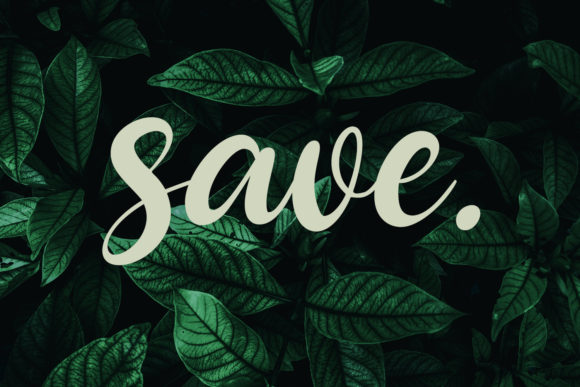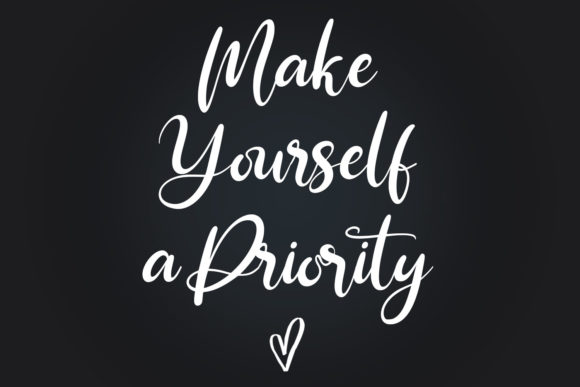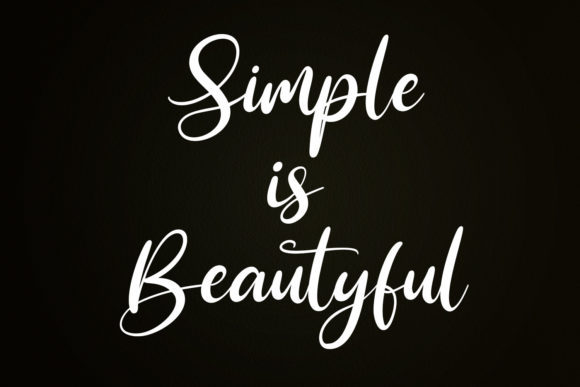
Introduction to Chime Bells Font
Have you ever found yourself staring at a blank canvas, trying to find the perfect font to bring your creative project to life? I know I have. And sometimes, all it takes is one beautiful font to spark inspiration and set your imagination running wild. That’s exactly what happened to me when I stumbled upon the stunning Chime Bells Font.
This gorgeous script font is a treasure trove of design goodness, featuring high contrast strokes, fun characters, ligatures, and alternates that will make your heart skip a beat. Whether you’re working on a love letter, wedding invitation, or any other creative project, the Chime Bells Font is sure to add a touch of romance and elegance to your design.
Key Features of Chime Bells Font
- Unique, hand-drawn design with a whimsical and playful feel, ideal for creative projects and personal use.
- Perfect for creating eye-catching titles, headings, and labels in various design projects, from wedding invitations to children’s book illustrations.
Honest Review: Chime Bells Font
As a designer, I’m always on the lookout for high-quality fonts to elevate my creative projects. The Chime Bells Font has been a recent addition to my design resource collection, and I must say, it’s been a pleasant surprise.
- Chime Bells Font has a wide range of uses, from titles to body text, making it a versatile addition to any project.
- The font’s unique, hand-drawn aesthetic adds a touch of whimsy and personality to any design.
- The Chime Bells Font may not be suitable for formal or corporate projects due to its playful, handwritten style.
Overall, the Chime Bells Font is a great addition to any designer’s collection, especially for creative projects that require a unique, hand-crafted feel. With its high quality and free download, it’s a design resource that’s hard to pass up.
Chime Bells Font is suitable for various design projects, including: wedding invitations, birthday party decorations, holiday cards, and more. Its versatility and high-quality design make it a valuable design resource.